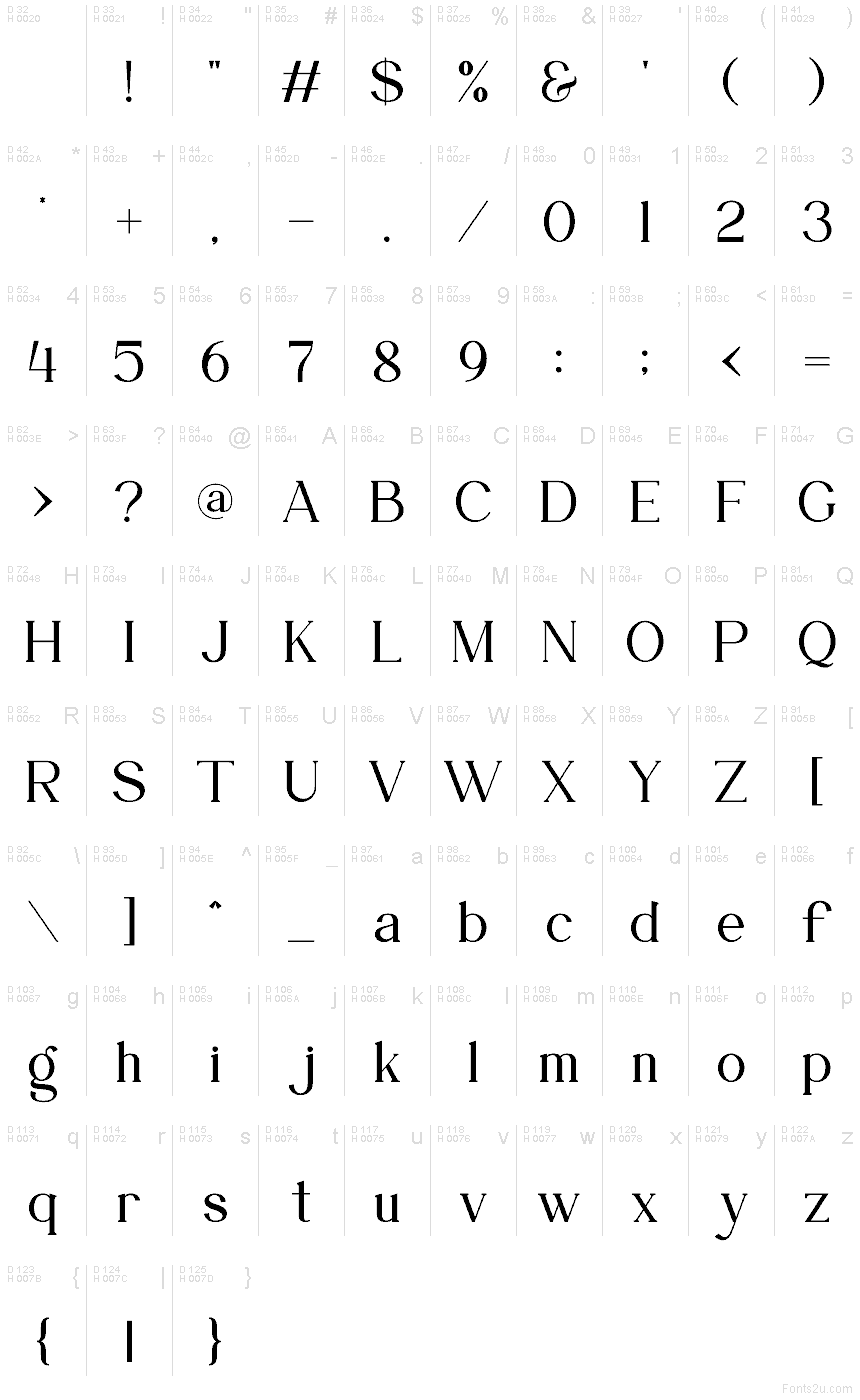
Cyendra
Cyendra font by Ermedia Studio is a free serif typeface. It stands out with razor-fine hairlines meeting solid verticals, teardrop-like terminals, and a graceful y-tail that gives each word a poised, couture feel. The rhythm is crisp and controlled, so headlines look luxurious without turning brittle, and the curves keep just enough warmth to avoid feeling cold.
Using Cyendra, you’ll get instant polish on luxury branding, boutique logos, beauty packaging, editorial headlines, wedding stationery, fashion lookbooks, and social promos. This free font loves generous sizes and a touch of letterspacing for air; tighten tracking slightly for bold, high-impact titles. Pair it with a clean geometric sans for body copy to let Cyendra’s sculpted forms do the spotlight work.